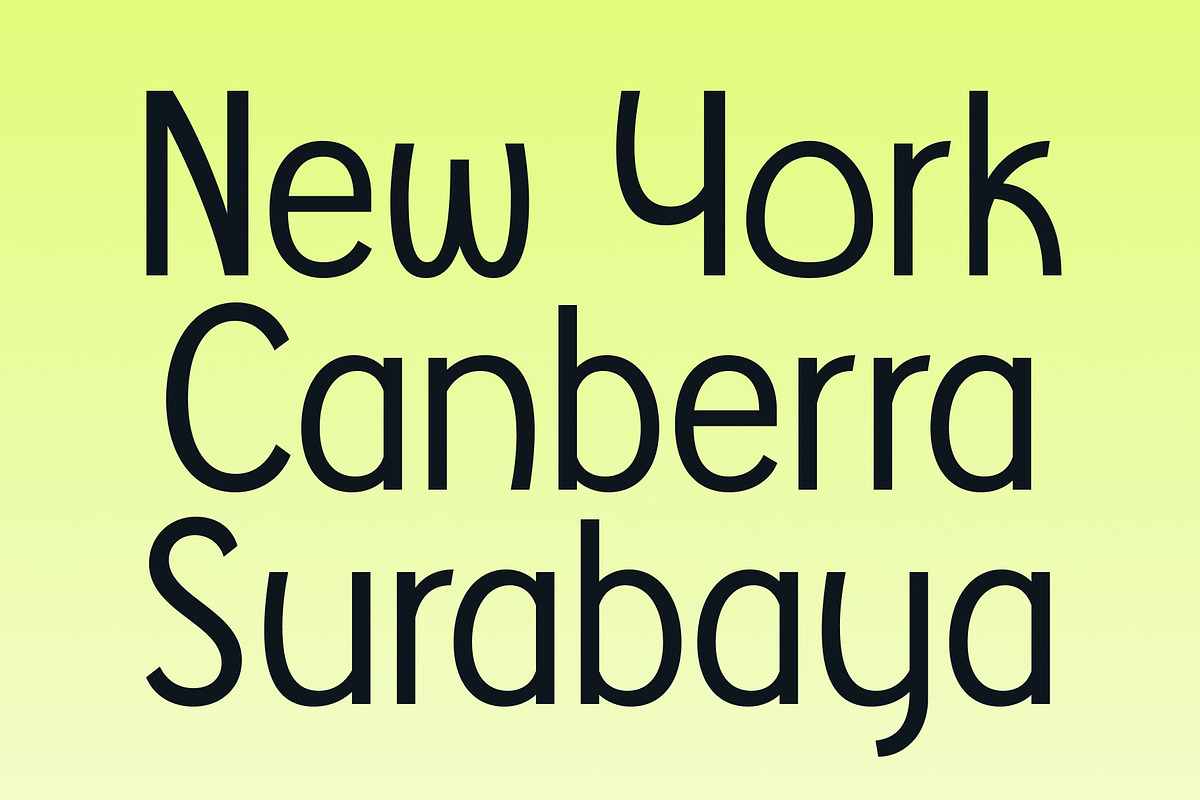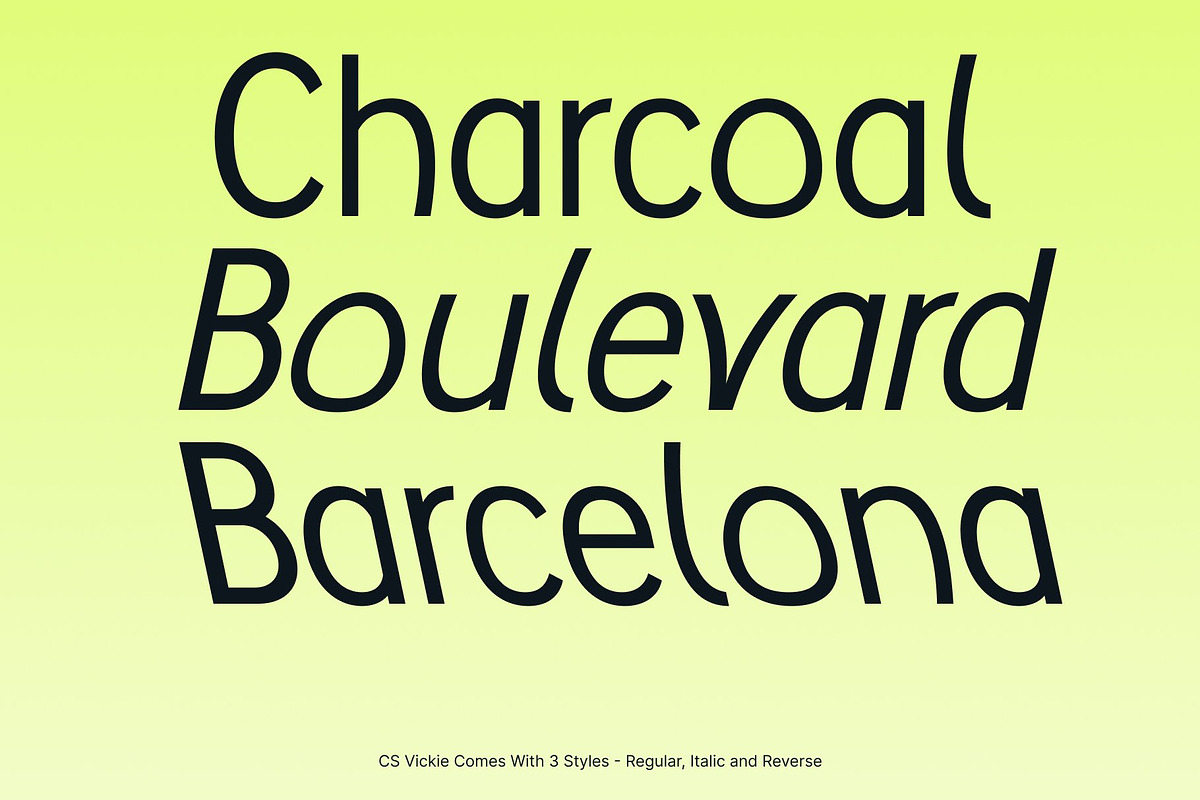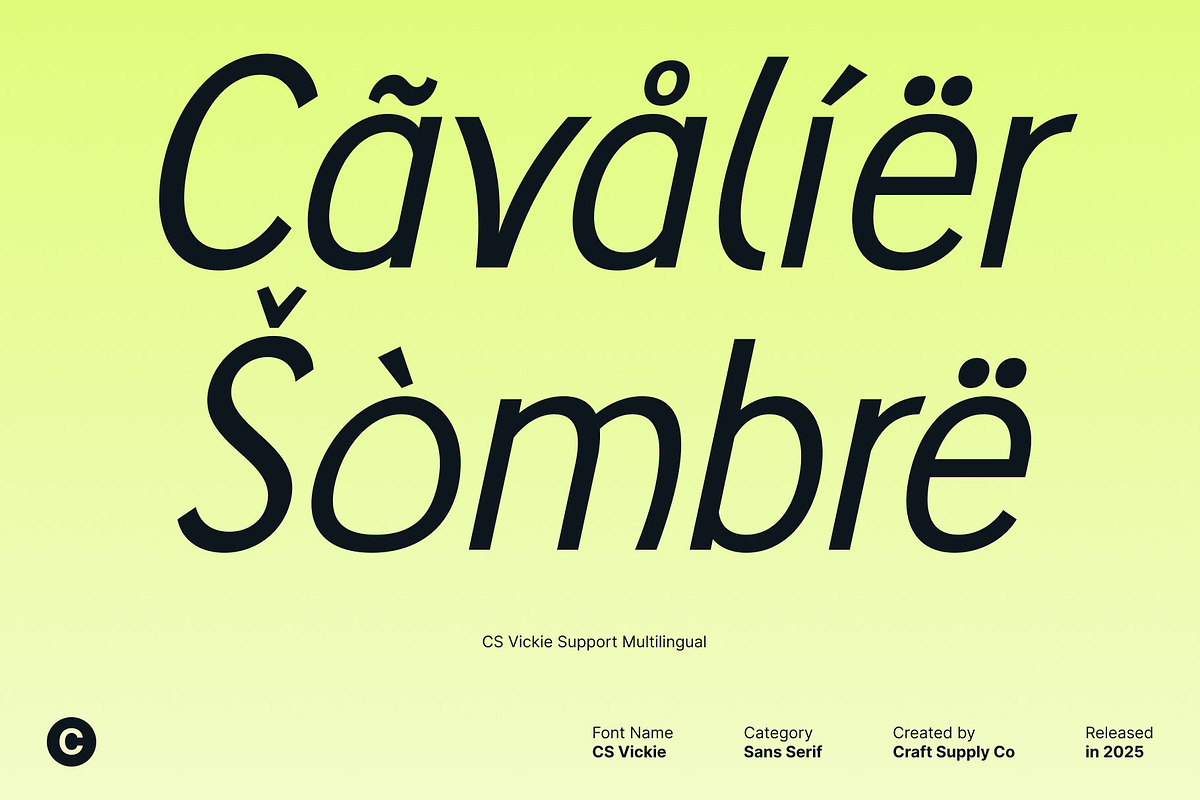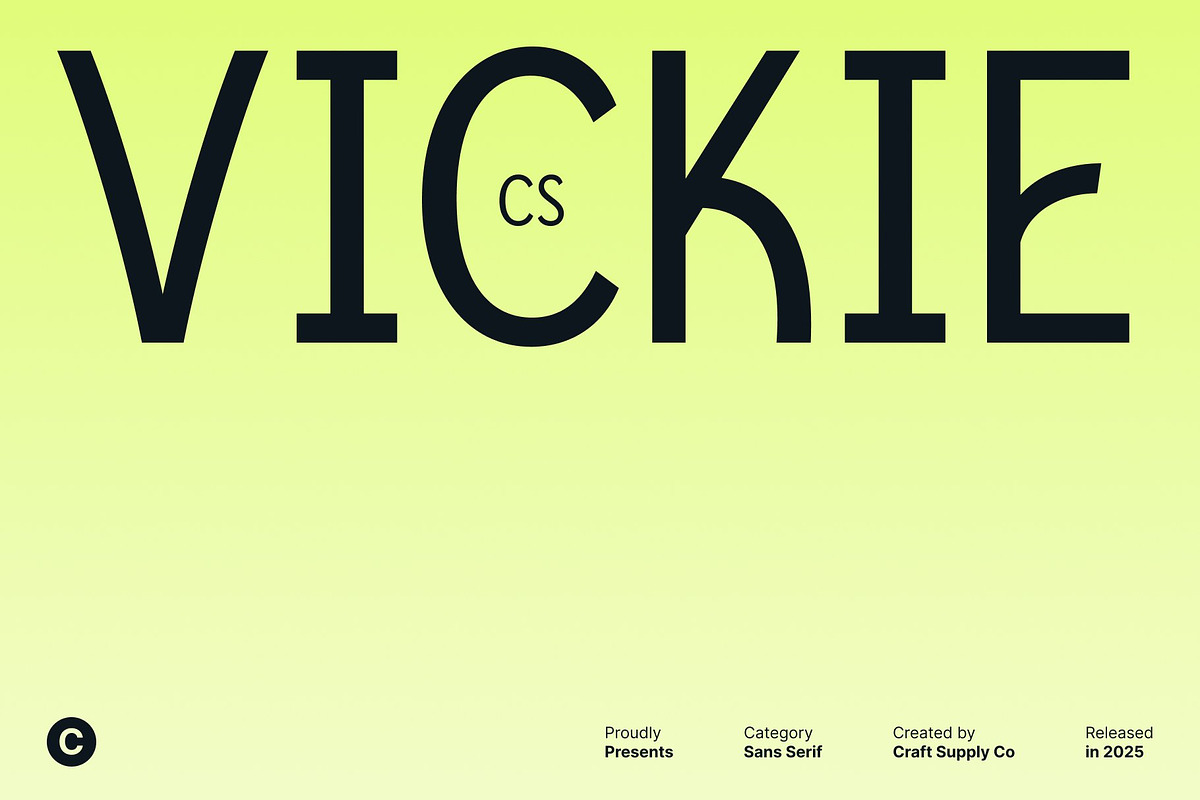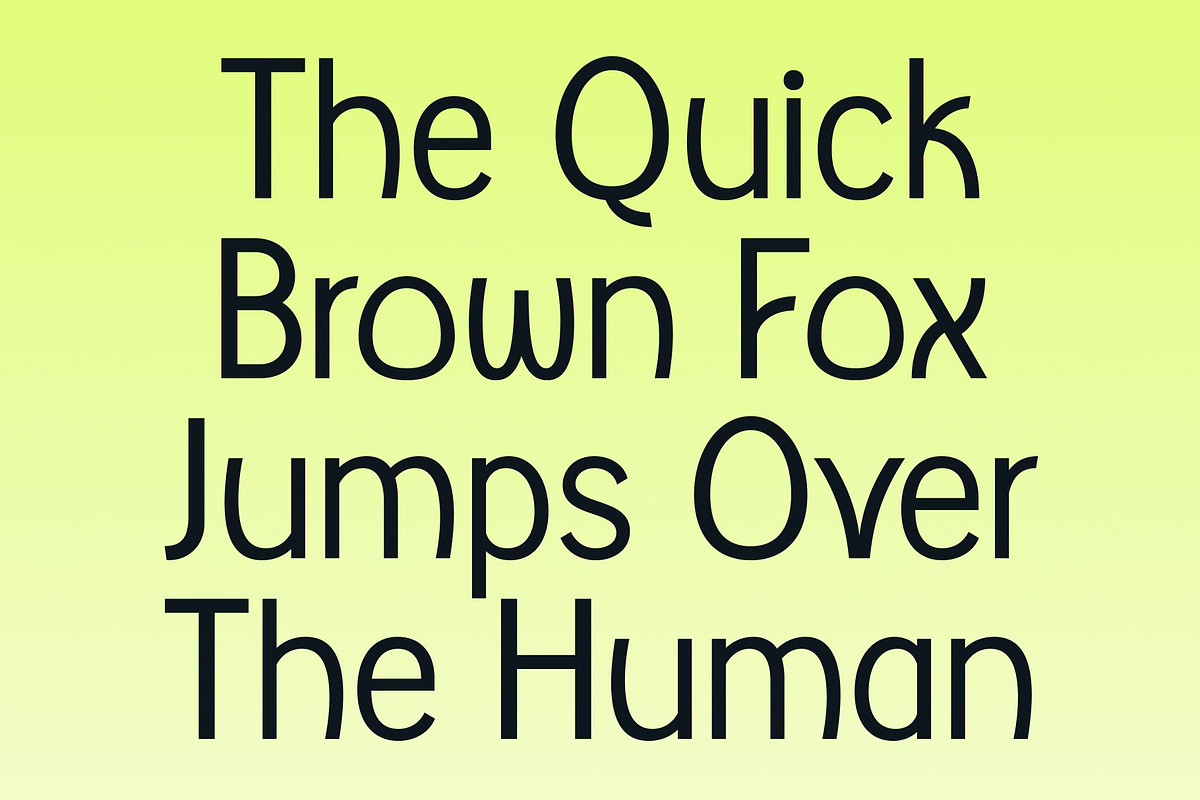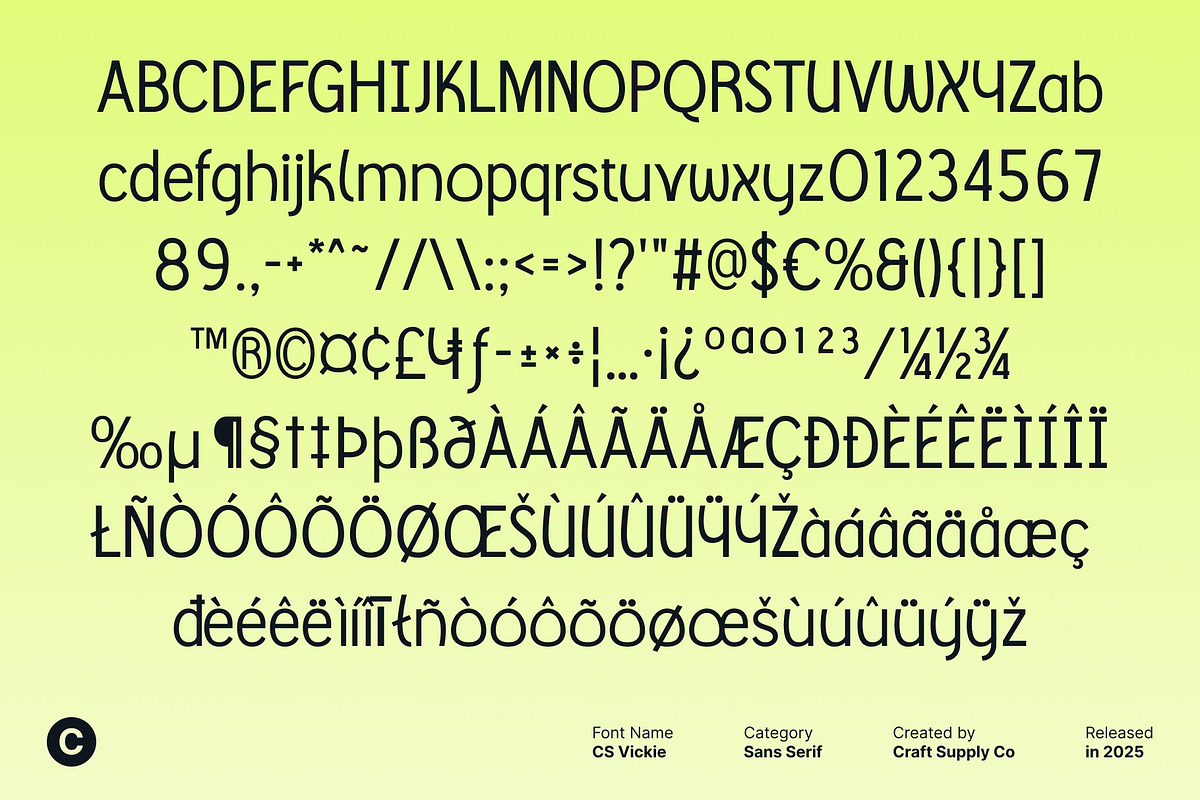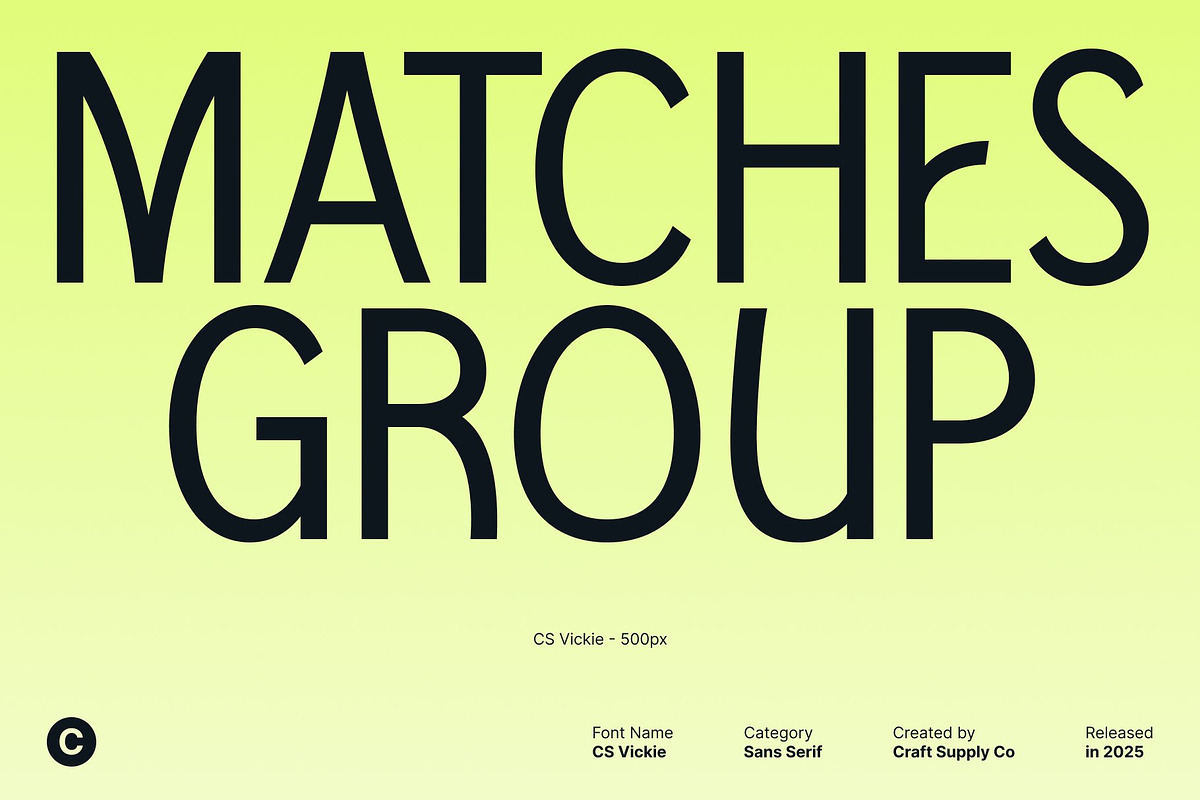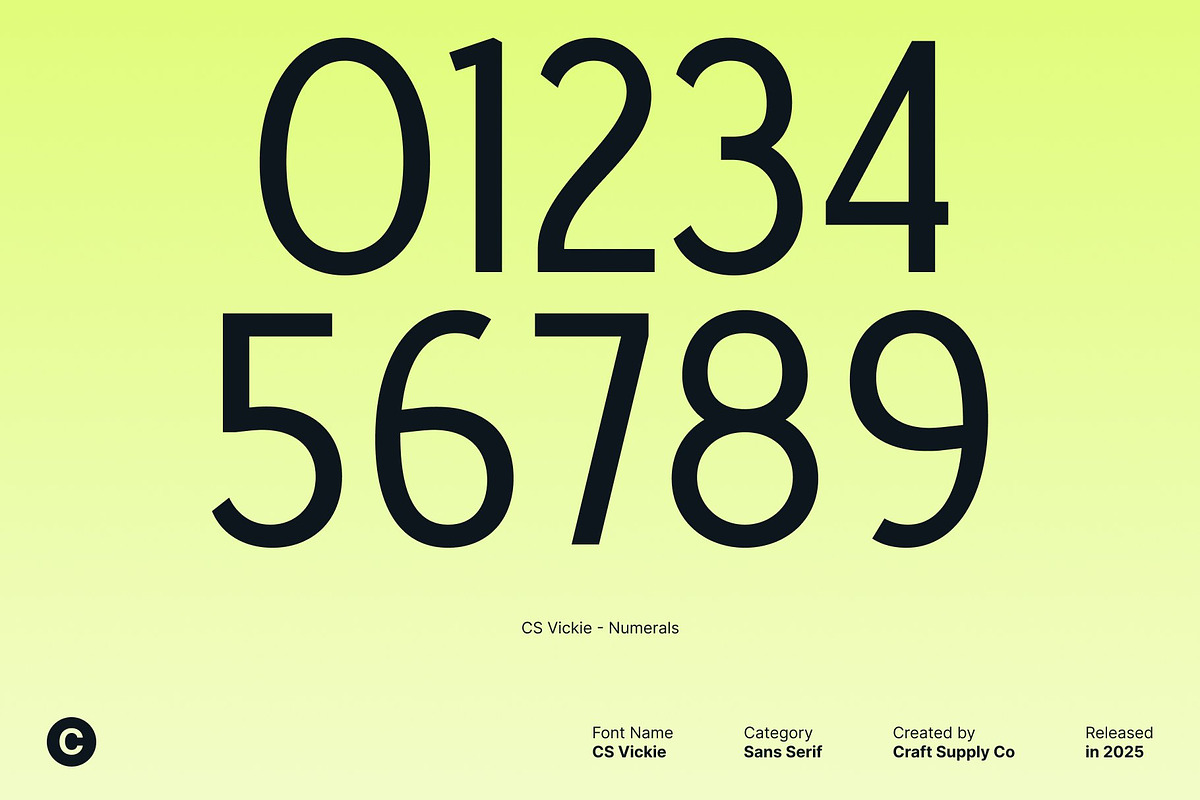
CS Vickie – Sans Serif Typeface
CS Vickie – Clean & Friendly Modern Sans Serif Font
Modern Design with a Warm, Welcoming Character This is a modern sans serif font crafted with a clean and approachable personality. Designed to feel warm and friendly, its smooth curves and soft geometric structure create an inviting visual appeal. This font brings a delightful balance of professionalism and charm, making it the perfect typeface for designers who want clarity without sacrificing character.
Playful Energy for Fun and Expressive Designs Infused with a fun and lighthearted vibe, adds a unique twist to every project. Its easygoing shapes and subtle quirks make your titles, headings, and logos feel more expressive and distinctive. Whether you’re designing for lifestyle brands, creative campaigns, or youth-oriented content, the font adds just the right amount of playfulness to elevate your message.
Clean Shapes for Clear and Attractive Readability Despite its friendly tone, maintains a clean sans serif structure that ensures excellent readability across sizes. Its balanced proportions and smooth strokes make it suitable for both display and short text usage. This harmonious design makes a dependable choice for projects that require clarity, warmth, and modern aesthetics all at once.
Perfect for Logos, Titles, and Creative Branding This font stands out as a versatile choice for designers seeking a modern font with personality. Ideal for logos, social media graphics, posters, packaging, and editorial design, it enhances visual storytelling with its approachable style.